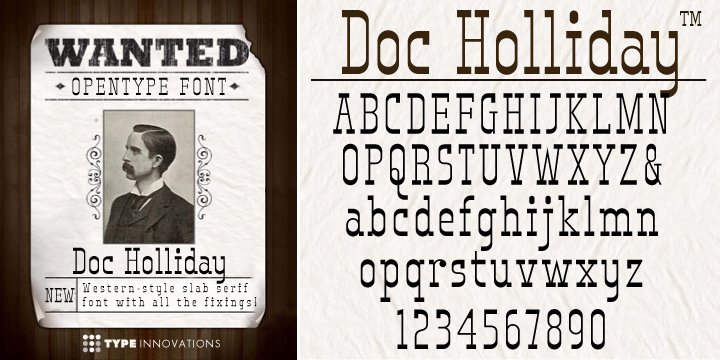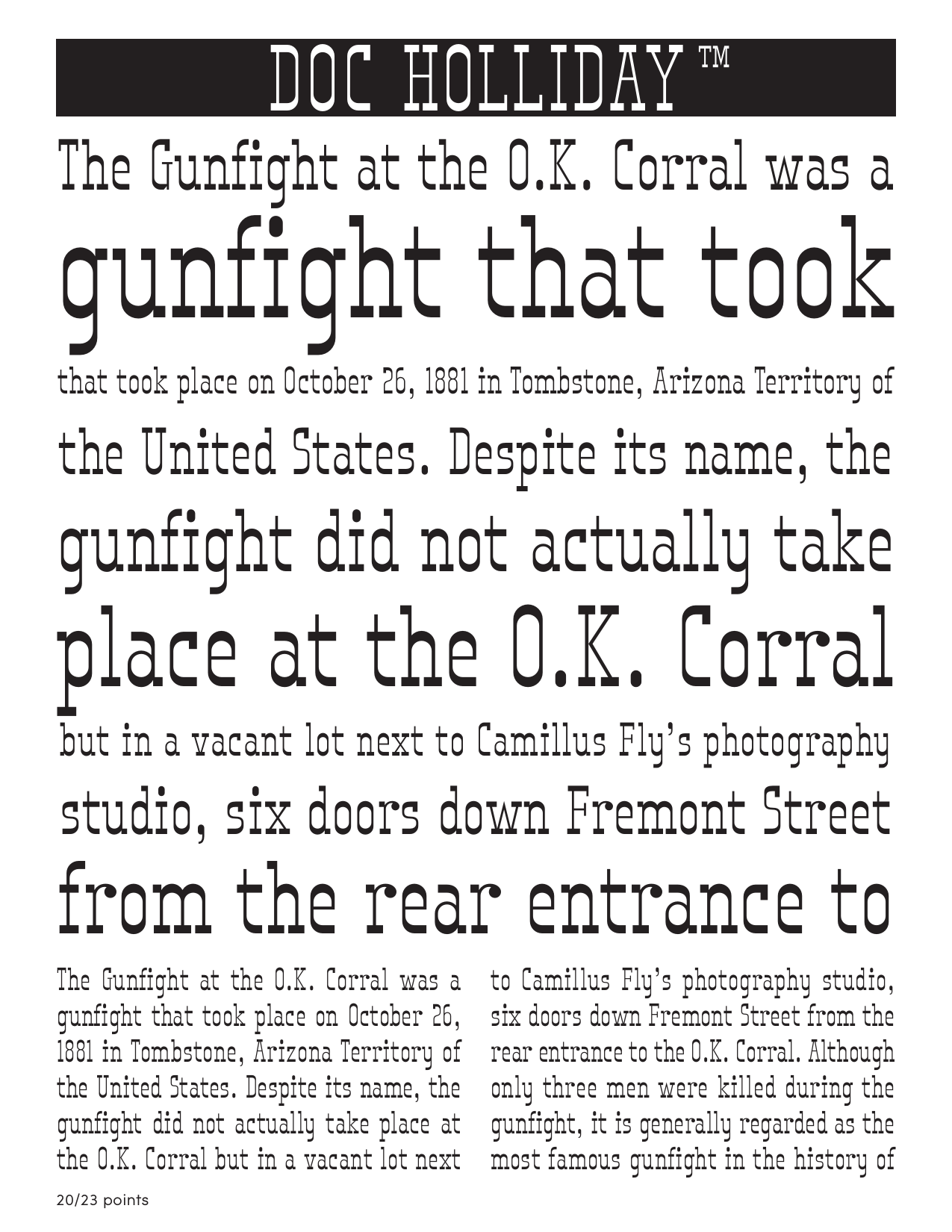
Doc Holliday
Doc Holliday is an original design by Alex Kaczun. It's a classic revival of a Western-style slab serif font extended to include Eastern European Latin and Baltic languages.
Doc Holliday has a mid-to-late 1800s wood type feel, and one can envision a sign over the O.K. Corral in Tombstone, Arizona, and the legendary Gunfight between the three Earp brothers and "Doc" Holliday and the Claytons and McLaurys.
This font can be applied to signage, promotions and other nostalgic projects. "Howdy pardiner!"